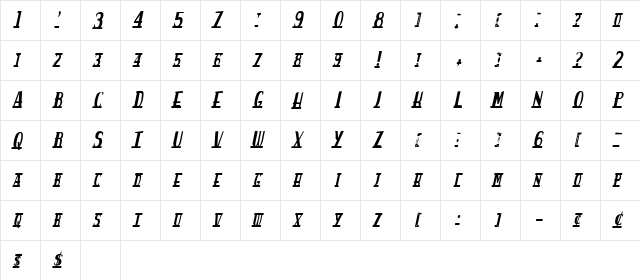
spanky's bungalow italico regular Font Preview
spanky's bungalow italico regular
Design Context for spanky's bungalow italico Typeface
spanky's bungalow italico takes a measured approach to typography — its balanced proportions and neutral character make it a reliable workhorse for both digital and print work. Its italic angle brings a sense of urgency and motion to the letterforms.
Pro Tip: Use spanky's bungalow italico for emphasis, pull quotes, and subheadings where its slanted energy can add rhythm to the layout.